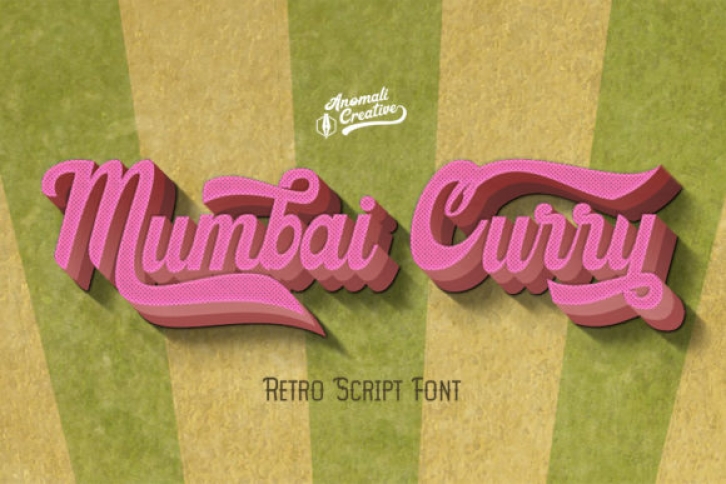
Mumbai Curry feels playfully nostalgic and delivers an incredible vintage aesthetic. Use this display font to add that special retro touch to any design idea you can think of!
Fall in love with its incredibly stylish look and use it for logos, quotes, invitations, business cards, power point presentations, and more!